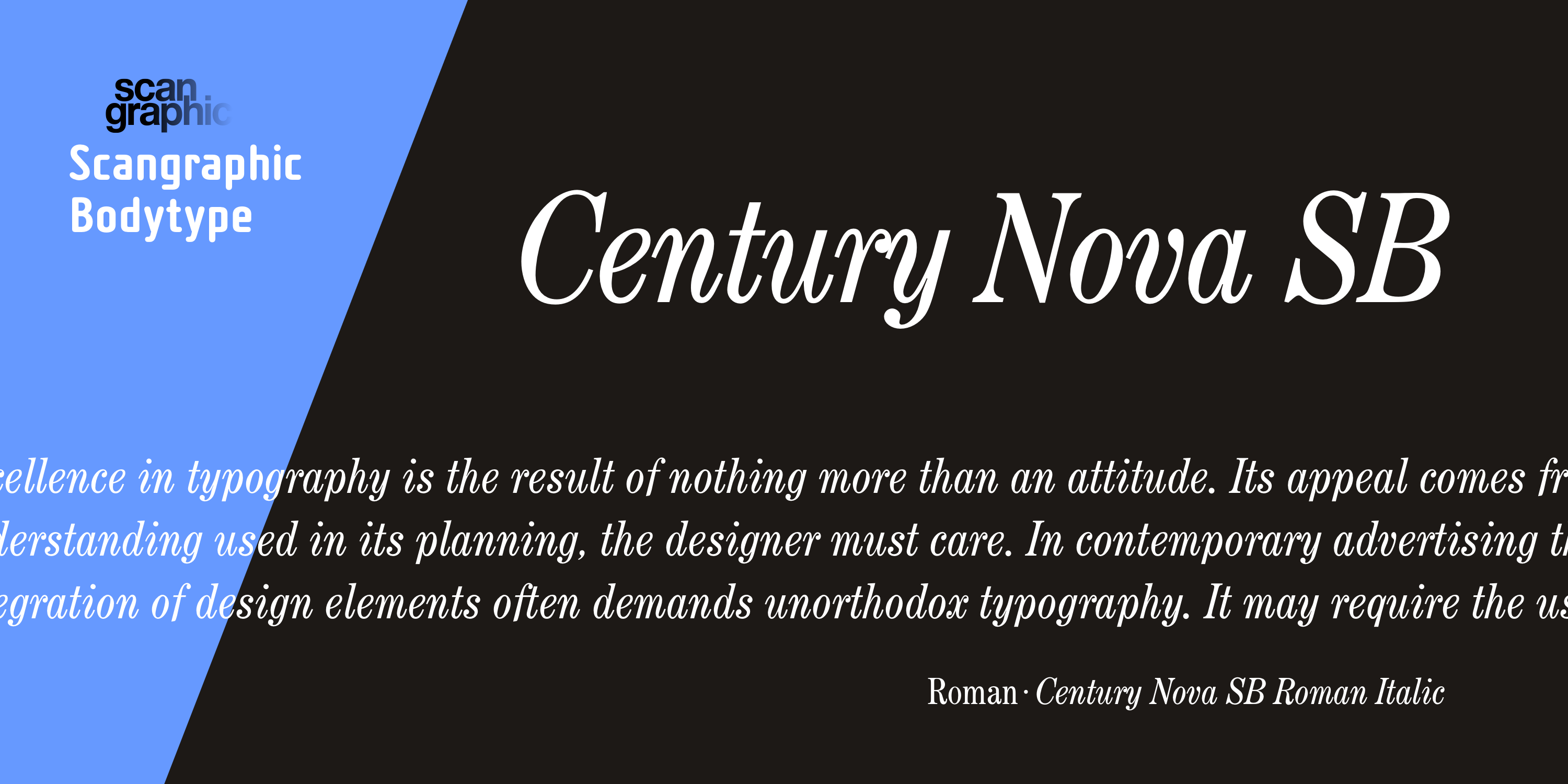
Century Nova SB Font is ideal for academic publications, scholarly journals, professional reports, legal documentation, corporate communications, business presentations, editorial design, research institutions, technical manuals, and formal correspondence materials.
What makes Century Nova SB Font exciting is its perfect evolution of classical typography that seamlessly combines time-tested readability with contemporary refinement for modern professional applications. This typeface features carefully balanced letterforms with optimized proportions and subtle contemporary updates that ensure exceptional legibility across all media while maintaining the authoritative presence of traditional serif design. The font's professional personality and scholarly elegance make it ideal for institutions and organizations seeking to convey credibility, expertise, and intellectual authority in their communications.
Century Nova SB Font family includes comprehensive weight options: Light, Regular, Medium, Bold, and Black variants, each available in Roman and Italic styles. The family also features small caps, old-style numerals, and extensive character sets that support multiple languages and specialized academic applications for global scholarly communication.
Academic institutions and professional organizations consistently choose Century Nova SB Font Free Download for projects requiring scholarly credibility and institutional authority. The font's refined character excels in both digital and print applications where sustained reading and professional presentation are paramount. Whether you're designing for universities, research publications, or corporate documentation, this distinguished typeface delivers the intellectual gravitas and professional reliability that builds confidence in academic excellence and scholarly achievement while ensuring optimal reading comfort for extended study sessions.